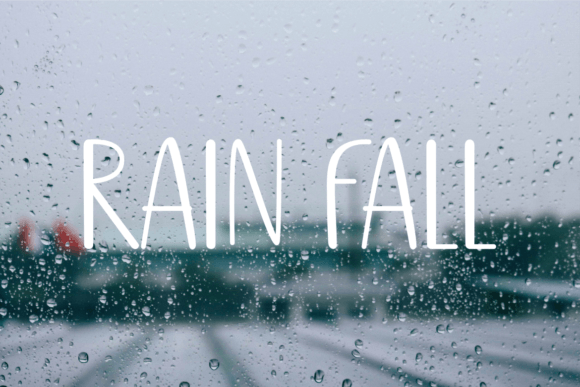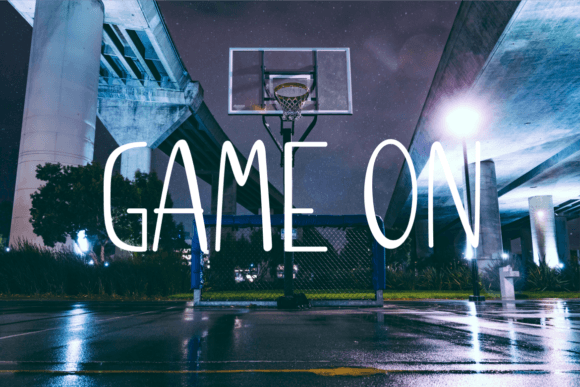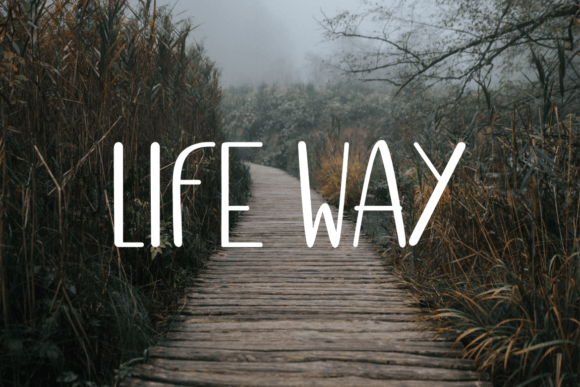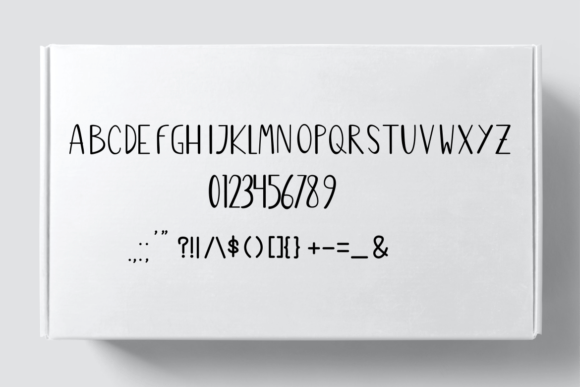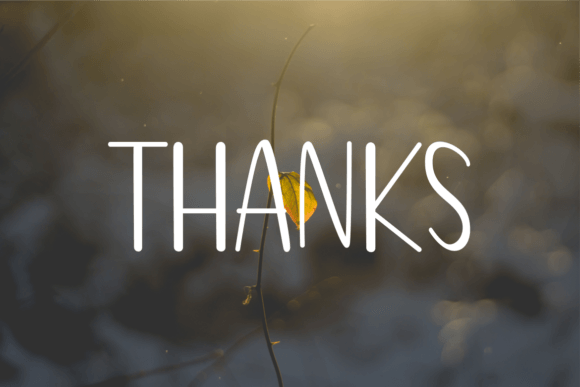
Introduction to Queschein Font
Queschein is a modern and fun sans serif font with a playful vibe.
Queschein is a modern and fun sans serif font with a playful vibe. Whether you’re using it for crafts, digital design, presentations, or making greeting cards, this font has the potential to become yo
Key Features of Queschein Font
Why Choose Queschein Font?
Queschein Font offers exceptional quality and versatility, making it a valuable addition to your design toolkit. Whether you’re creating for personal projects or commercial use, Queschein Font delivers professional results.